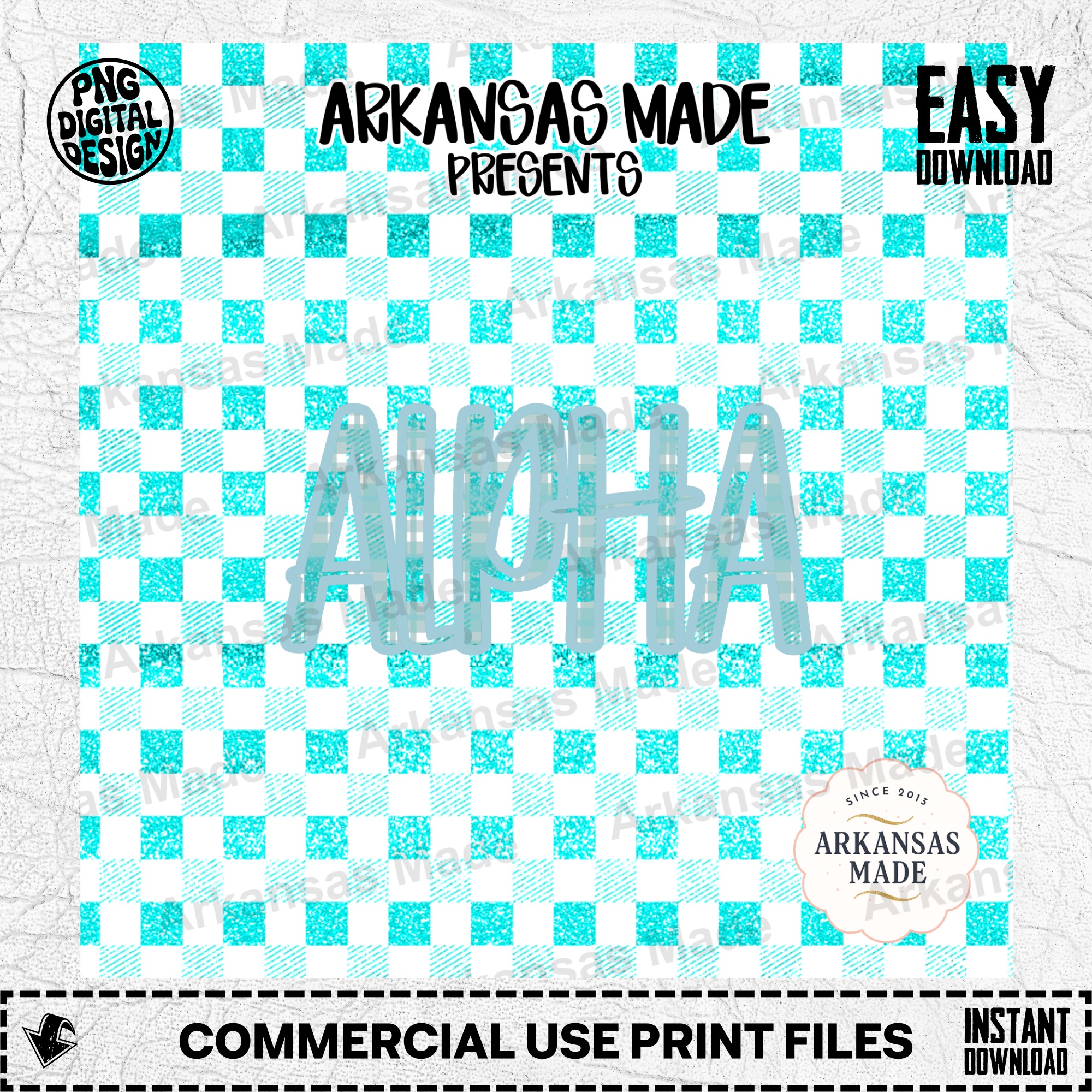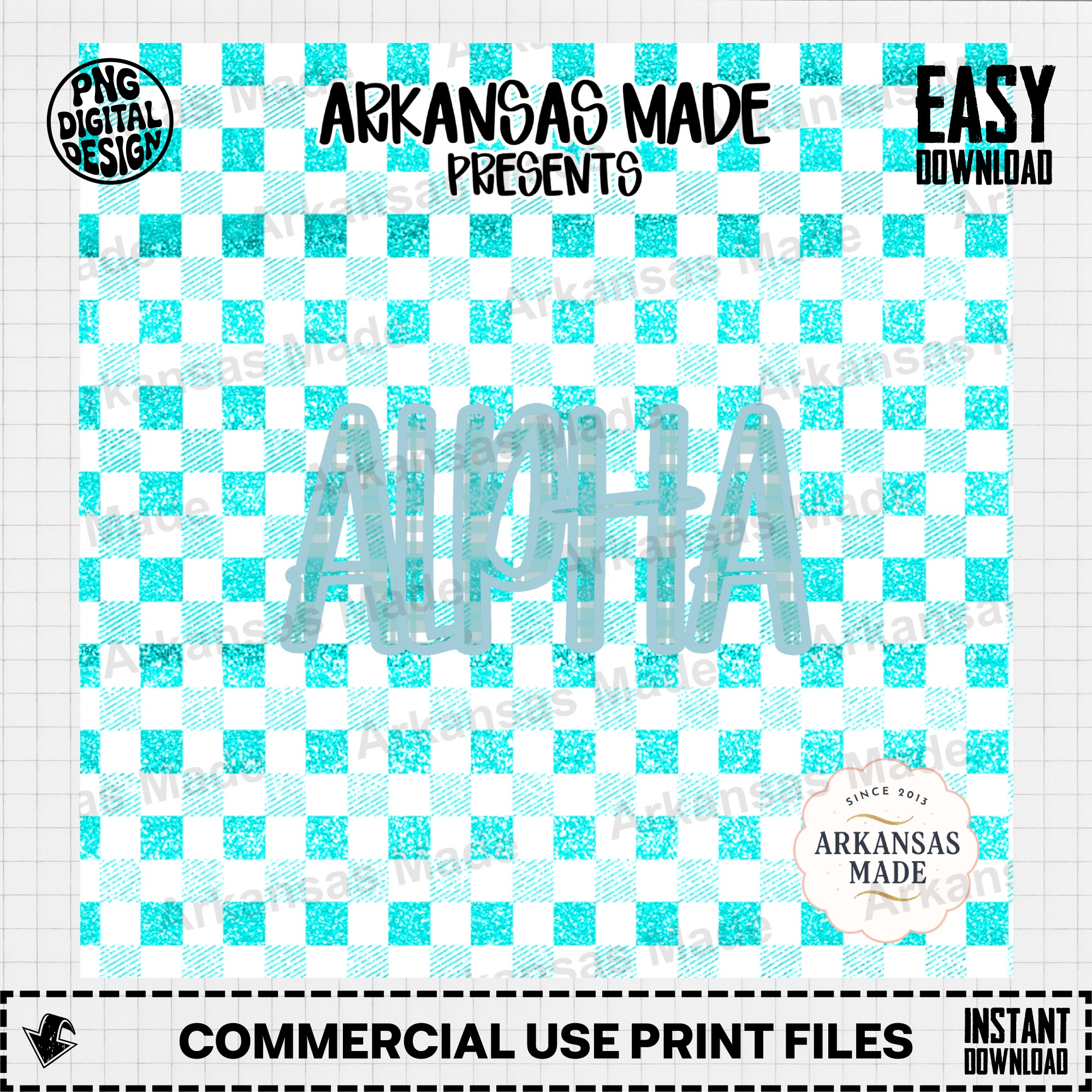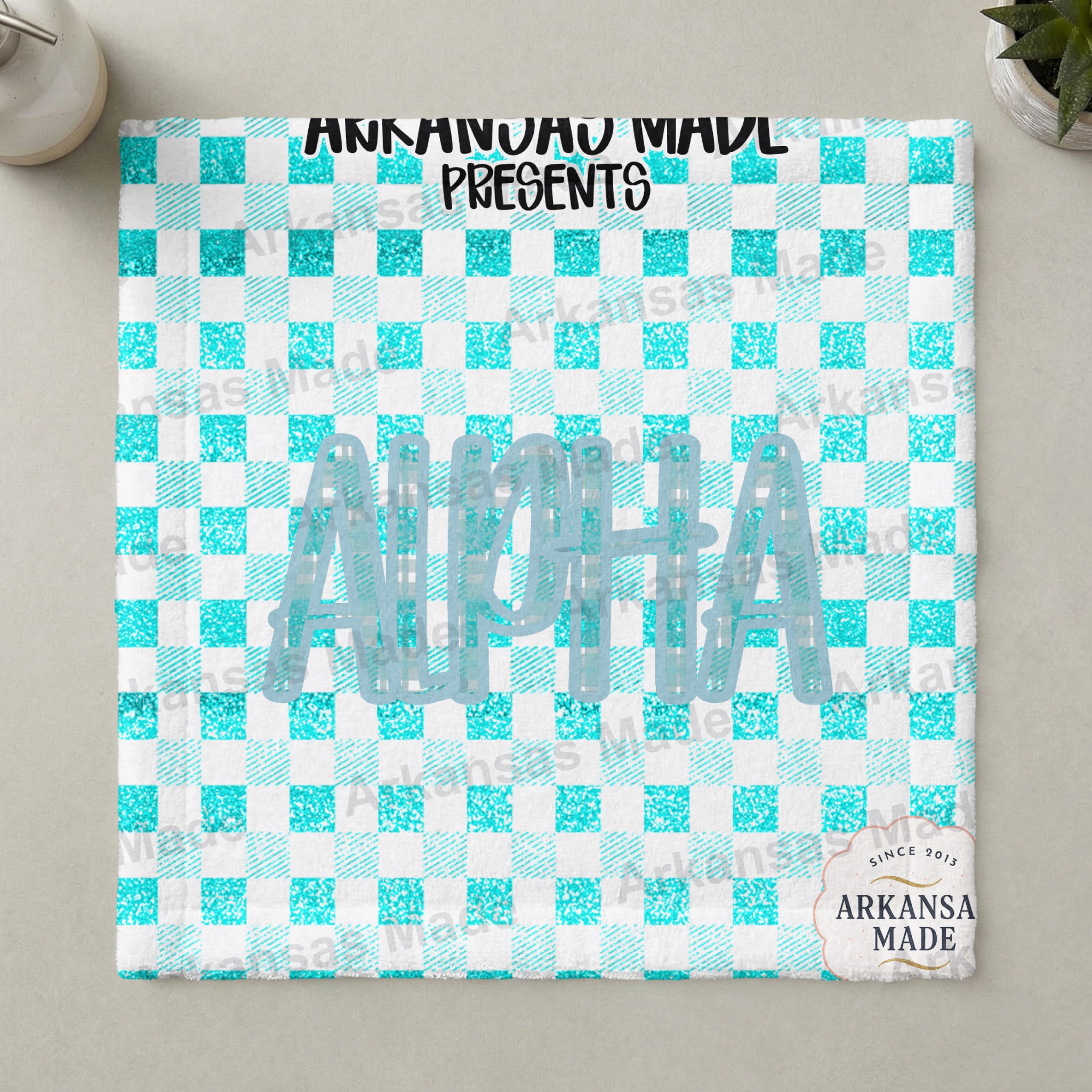
Dive into creativity with our vibrant Turquoise Glitter Gingham Alpha Digital Download Set, perfect for sublimation and digital crafting projects. This playful, preppy alpha set features a faux glitter checkerboard pattern, adding a touch of sparkle to any design. Ideal for crafters, DIY enthusiasts, and small business owners looking to personalize t-shirts, tumblers, invitations, or scrapbooks. Use these versatile letters to create unique gifts for sorority sisters, college friends, or anyone who loves a bright, fun aesthetic.